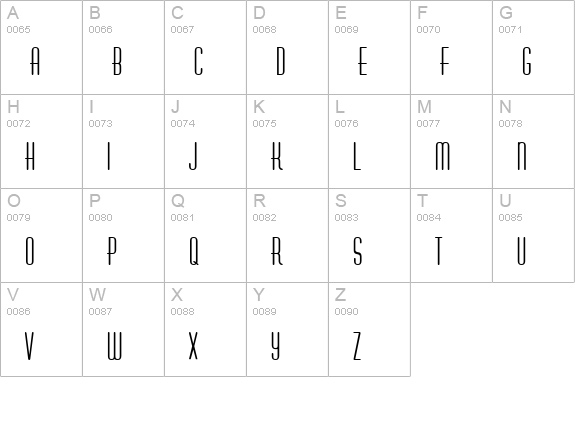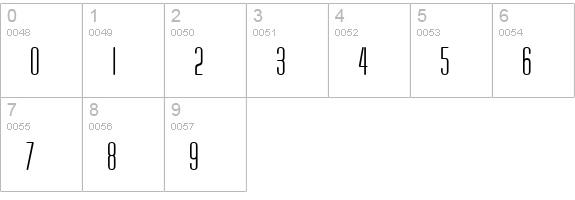
Astute Regular is the standard, neutral variant in the Astute typeface family \xE2\x80\x94 well suited to general body text, paragraphs, and standard typographic work.
Astute Regular font is a sleek and modern typeface that exudes sophistication and elegance. Its clean lines and balanced proportions make it perfect for a wide range of design projects, from branding to editorial design. The font's sharp and precise letterforms give off a sense of intelligence and professionalism. What sets Astute Regular font apart is not only its visual appeal but also its versatility. Whether used in headlines, body text, or even logos, this font adapts effortlessly to various design needs. Its timeless design ensures that it will remain relevant for years to come. And the best part? Astute Regular font is available for free download at FontsMarket.com. So designers and creatives alike can easily access this high-quality typeface for their projects without breaking the bank. Upgrade your designs with Astute Regular font today and elevate your work to the next level.